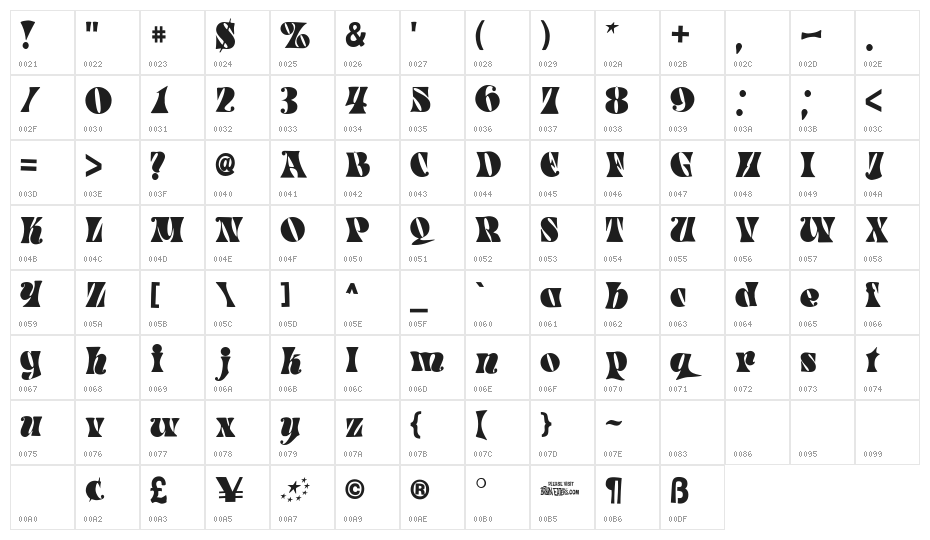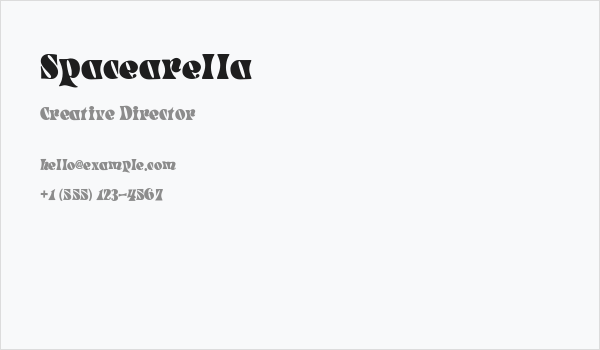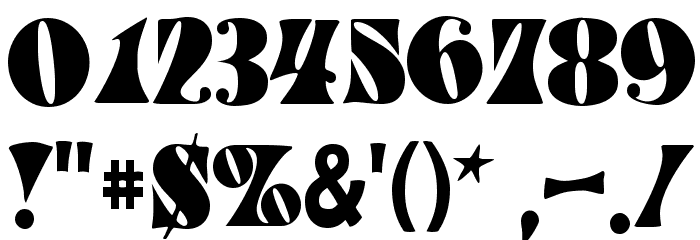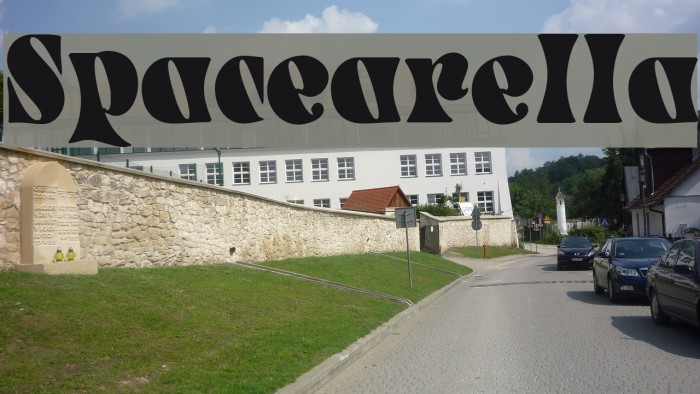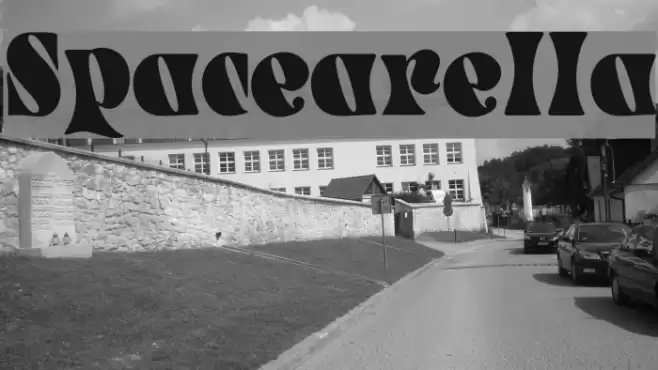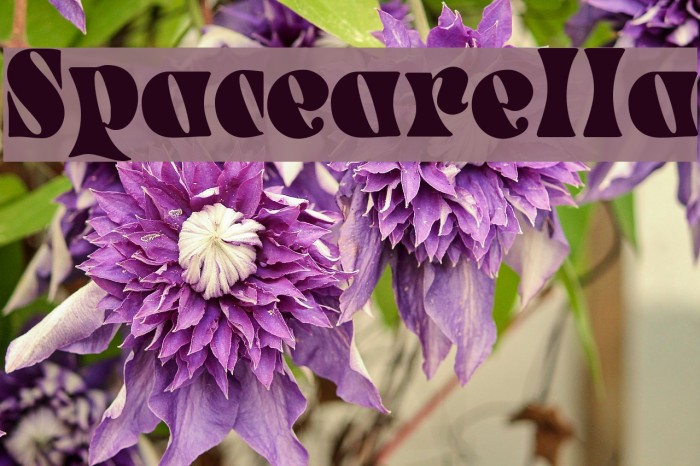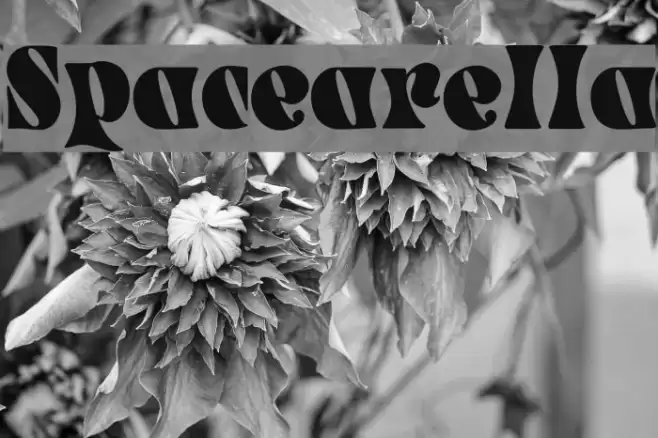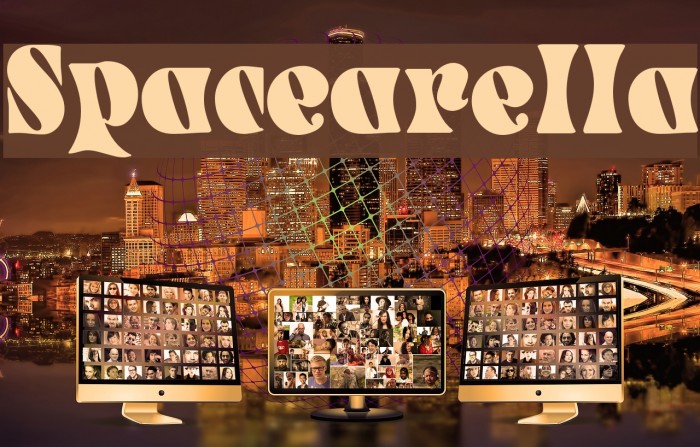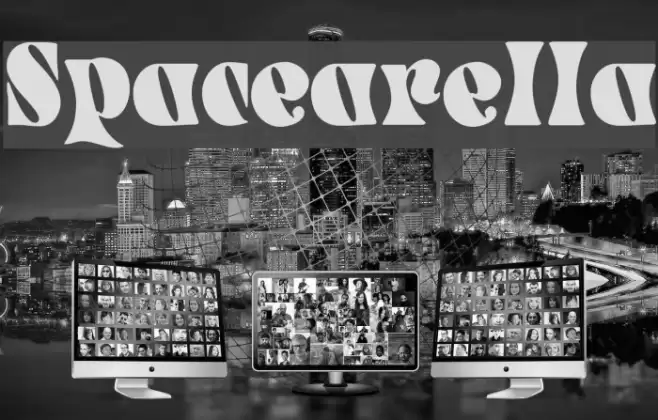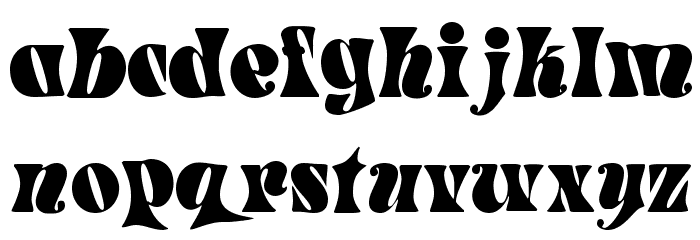
Spacearella Font
Spacearella Description
This font features a bold and dynamic design with high contrast between thick and thin strokes. The characters have a unique, playful flair with exaggerated curves and sharp angles, creating a sense of movement and energy. The uppercase and lowercase letters maintain a consistent style, with the lowercase letters slightly more rounded. Numbers and special characters are equally bold, ensuring a cohesive look across all text elements. The font's distinctive style makes it stand out, making it ideal for attention-grabbing designs.
| Proposed Projects | Ideal for posters, branding, and headlines that require a bold and dynamic presence. |